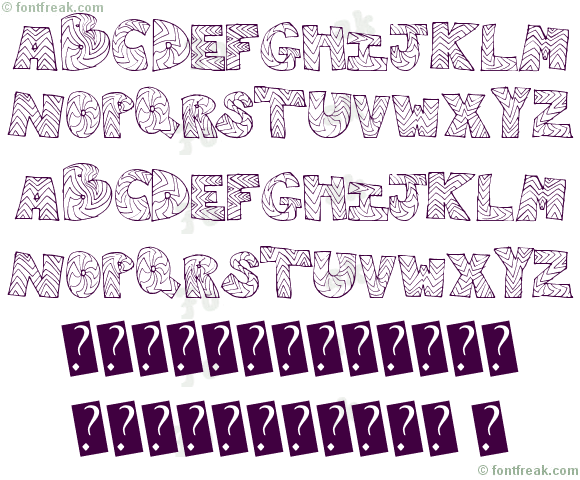
RightWay
The RightWay font by XEROGRAPHER FONTS is an eye-catching display typeface that embodies a playful and artistic flair. Released in 2012, this unique font captures attention with its distinctive, hand-drawn style that features irregular stroke weights and creative decorative elements. The varying line thickness adds a dynamic contrast, making each character visually engaging while maintaining readability. The slightly uneven spacing enhances its whimsical character, making it perfect for designs that aim to stand out.
RightWay is especially suited for a variety of creative applications. Its lively appearance makes it an excellent choice for wedding invitations, where a touch of personality is desired. Additionally, it works wonderfully for movie posters, lending a sense of fun and creativity that captures the spirit of the film. Restaurant menus can also benefit from this font, adding a touch of character to the dining experience, while it can be effectively used in promotional materials for art events or craft fairs, where creativity is at the forefront.
This font appeals to graphic designers looking for unique typefaces to enhance their projects, as well as small business owners who want to convey a friendly and approachable brand image. Content creators will also find it a valuable addition to their toolkit for creating engaging social media graphics and blog headers.
What sets the RightWay font apart is its ability to infuse personality into any design. Its playful nature and artistic style make it a versatile choice for various creative projects. With a RightWay font free download, designers and creators can easily incorporate this expressive typeface into their work, making their designs not just visually appealing but also memorable.